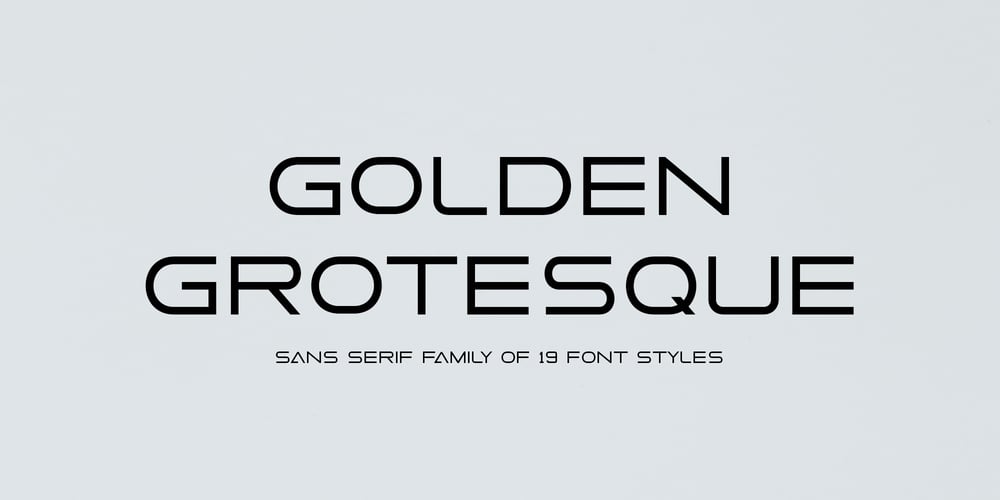
Golden Grotesque
Golden Grotesque font
Golden Grotesque Font Family was designed by Muriza Moriztype and published by moriztype. Golden Grotesque contains 18 styles and family package options. Golden Grotesque – Designed by Moriztype. The whole family consists of 9 Golden Grotesque Uprights, 9 Golden Grotesque Italic, 19 fonts in all. The font is informal and friendly at first glance and perfect for any display setting, but the straight, upright Golden Grotesque architecture also makes it perfect for longer copies. Due to its large x-height, it even works well in very small sizes.Golden Grotesque – This contemporary type family is ideal for use in retail, cosmetic, food and hospitality applications and advertising. Golden Grotesque is equipped for complex and professional typography.